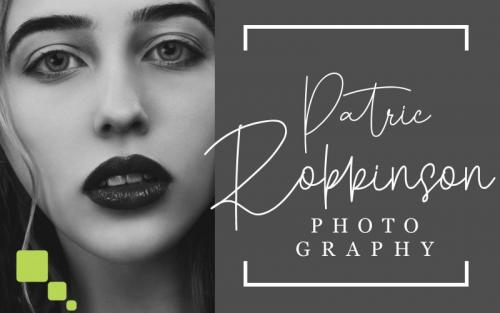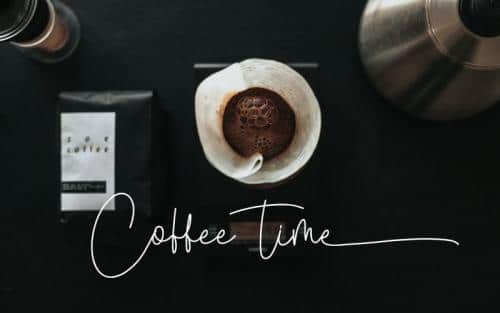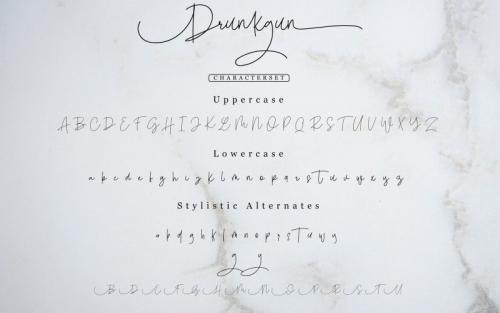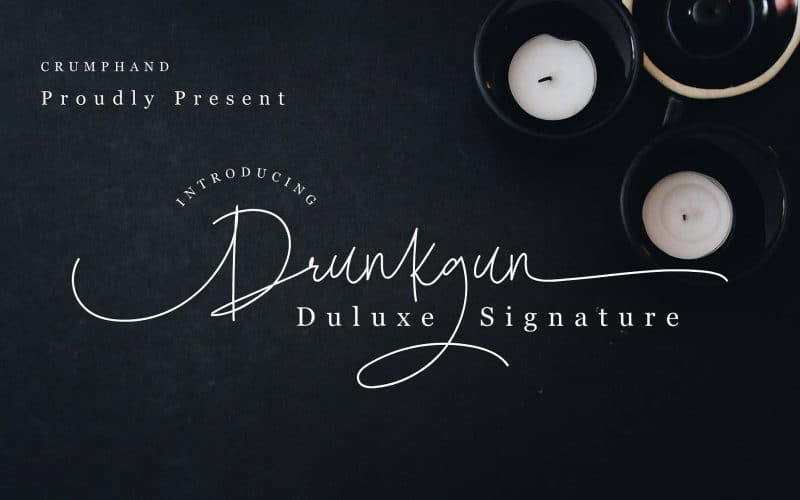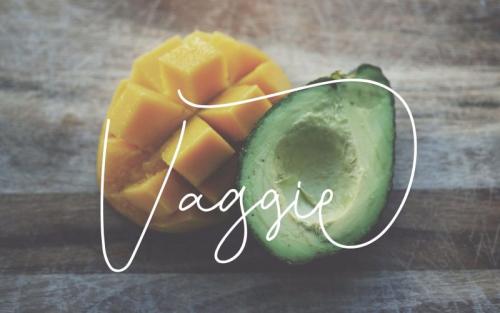
I just want to introducing my new font. Its called Drunkgun Duluxe Signature. This font its really perfect Signature. You can use for all the platform, branding, logo, video and many more.